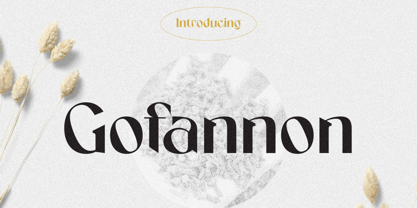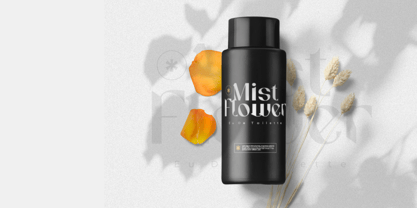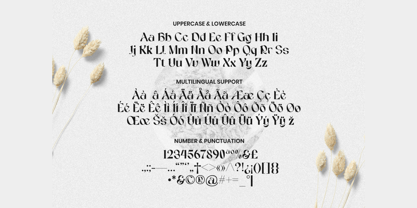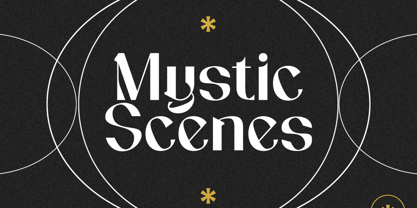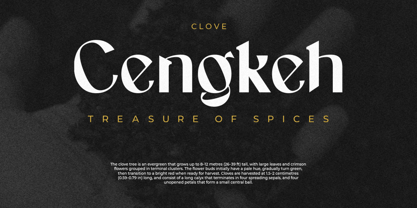
Gofannon
by Imoodev
The Gofannon Font Family was designed by Aulia Savira Putri and published by Imoodev. Gofannon contains 1 styles. More about this family
Introducing Gofannon, a stunning display serif font that masterfully blends timeless elegance with a sharp, modern edge, graceful details, Gofannon is designed to make a memorable statement in any creative project. Gofannon exudes an air of luxury. Each character is meticulously crafted, featuring crisp, flared serifs and beautifully flowing curves. This blend of classic structure and contemporary flair makes it incredibly versatile for a wide range of applications. Perfect for high end branding, Gofannon shines in logos, headlines, and magazine mastheads. Ideal for fashion editorials, beauty product packaging, luxury invitations, and wedding stationery.